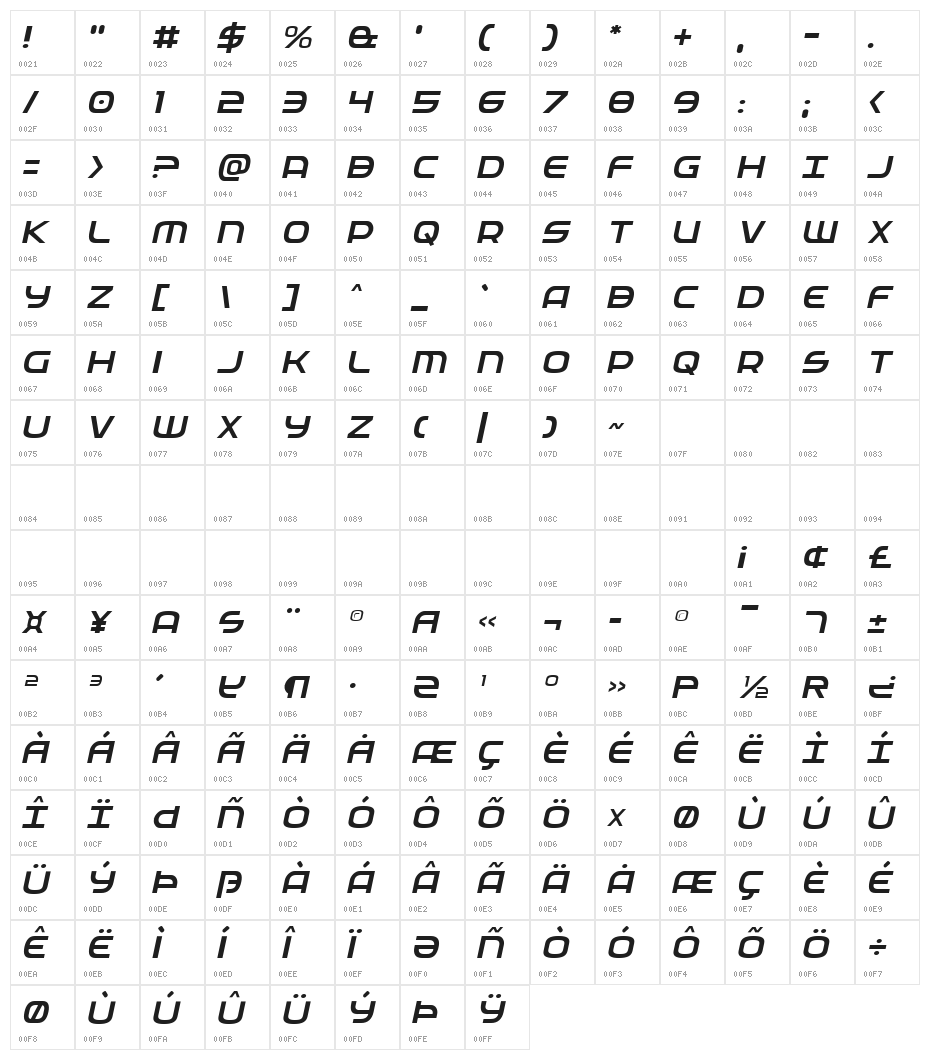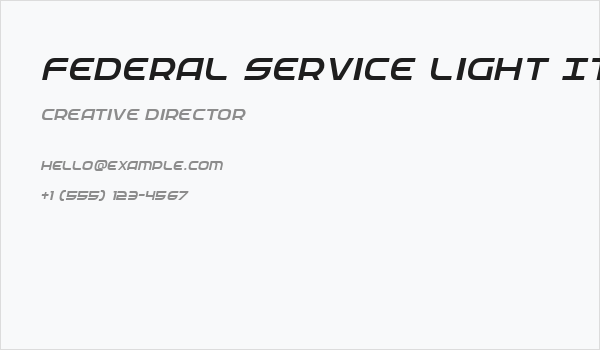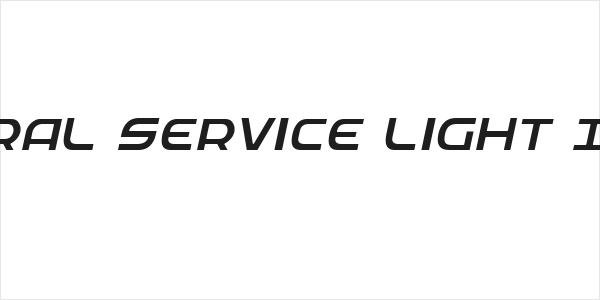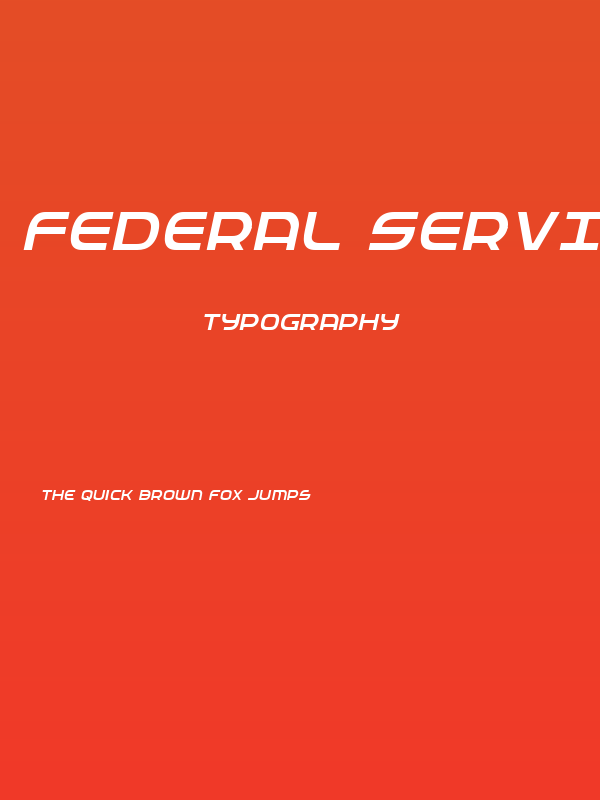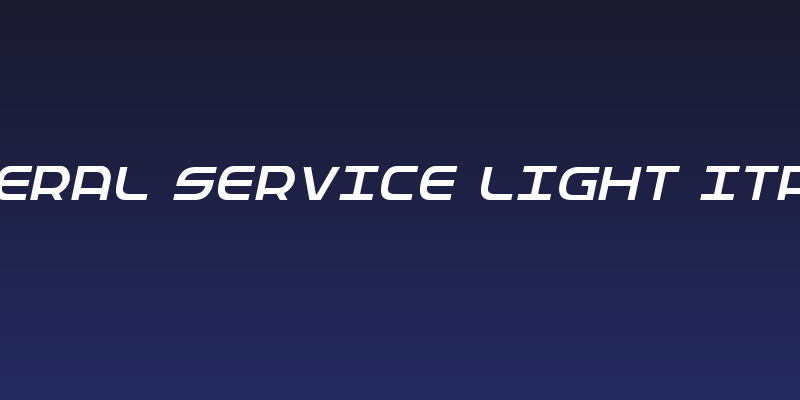
Federal Service Light Italic Font
Federal Service Light Italic Description
This font features a sleek and modern design with a distinct italic slant, giving it a dynamic and forward-moving appearance. The characters are crafted with a uniform stroke width, contributing to a clean and streamlined look. The rounded edges and slight curvature in certain letters add a touch of softness, balancing the overall geometric structure. The font maintains a consistent baseline, ensuring readability and coherence across different text sizes. Its contemporary style makes it suitable for a variety of digital and print applications, where a modern and professional aesthetic is desired.
| Proposed Projects | Ideal for branding, digital interfaces, advertising, and editorial design. |